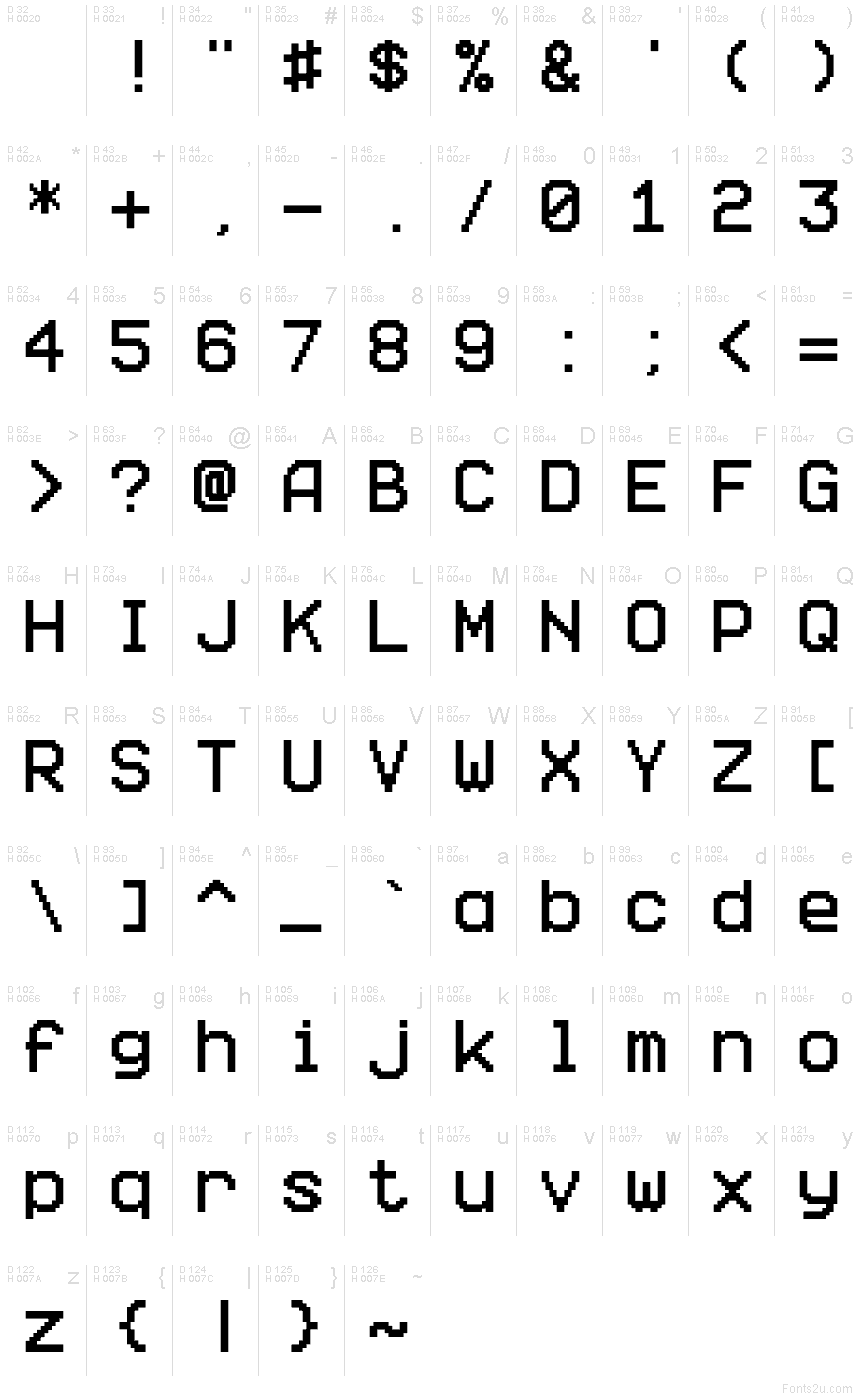
Better VCR-JP
Better VCR-JP font by Artdzyk is a free pixel bitmap font that captures the crunchy charm of old CRT menus and VHS time stamps. Its tight grid, narrow shapes, and faintly jagged edges feel like text burned into a fuzzy screen, giving your layouts an instant lo-fi, late-night broadcast vibe. The characters line up with a steady, mechanical rhythm that keeps even glitchy or noisy visuals readable.
Using Better VCR-JP, you can give game HUDs, retro UI mockups, streaming overlays, lo-fi video captions, album art, and nostalgic posters a consistent, screen-born voice. This free font really shines at small to medium sizes where each pixel stays crisp; for longer copy, pair it with a clean modern sans set a few sizes smaller to keep hierarchy clear without losing that analog-tech mood.